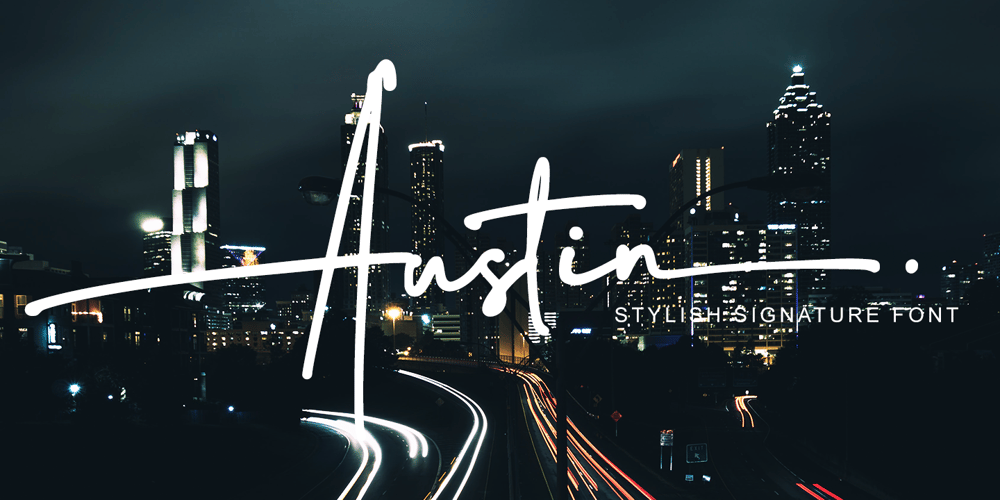
Austin Signature font
Austin Signature font Font Family was designed by Agung Rohmat and published by alphArt. Austin Signature font contains 1 styles and family package options. Austin is a natural Stylish signature font with signature font style, also the best natural Stylish signature font that we have ever created.If you want a logo with a natural signature font style, this signature font is the right choice for you.A long stroke at the end of the word that looks like the preview image is really looks like a professional signature, we also add dot in the end of name to make it really natural style.However this signature font is great for your next creative project such as watermark on photography, album cover, logo, business card, and many other design project.This signature font comes with uppercase letters, lowercase letters, alternate lowercase letters, multi lingual support, numbers and punctuation.